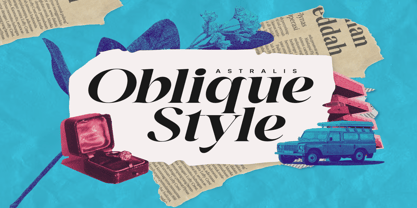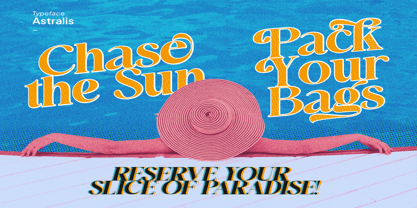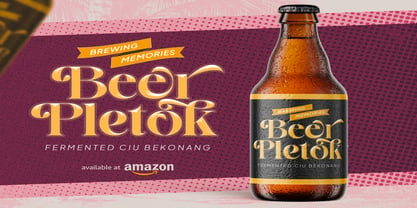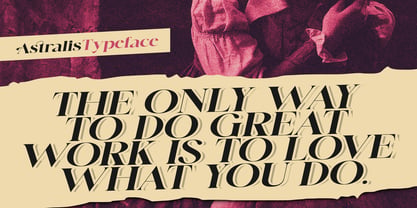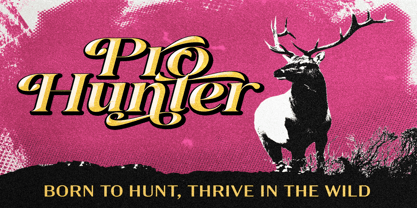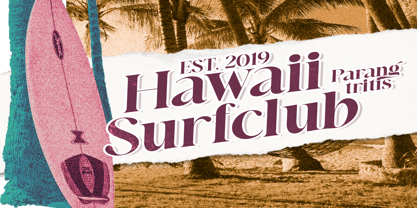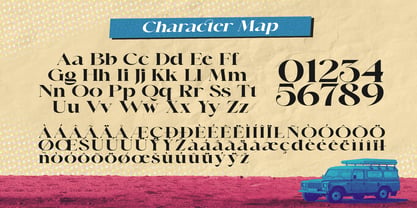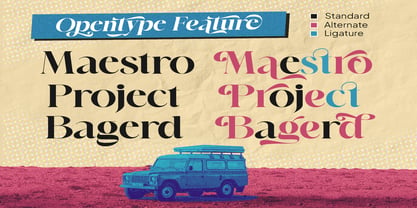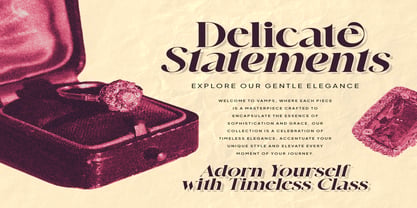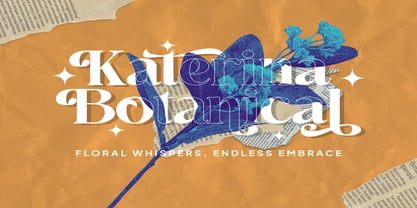
Astralis
by Vampstudio
The Astralis Font Family was designed by Irfan syah and published by Vampstudio. Astralis contains 2 styles and family package options. More about this family
Introducing Astralis Retro Display Font, a captivating typeface that takes you on a journey through time. With its regular and oblique styles, Astralis infuses your designs with the vibrant charm of yesteryears.
Key Features:
Vintage Vibes: Immerse yourself in the nostalgic allure of Astralis, capturing the essence of retro aesthetics that evoke memories of the past.
Playful Typography: Each character in Astralis is meticulously designed with a playful demeanor, radiating an energetic and lively vibe.
Versatile Application: Whether you’re working on posters, branding projects, or digital designs, Astralis effortlessly adds a touch of retro flair to elevate your creative endeavors.